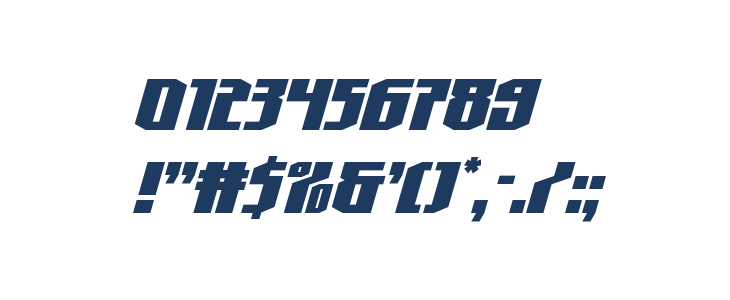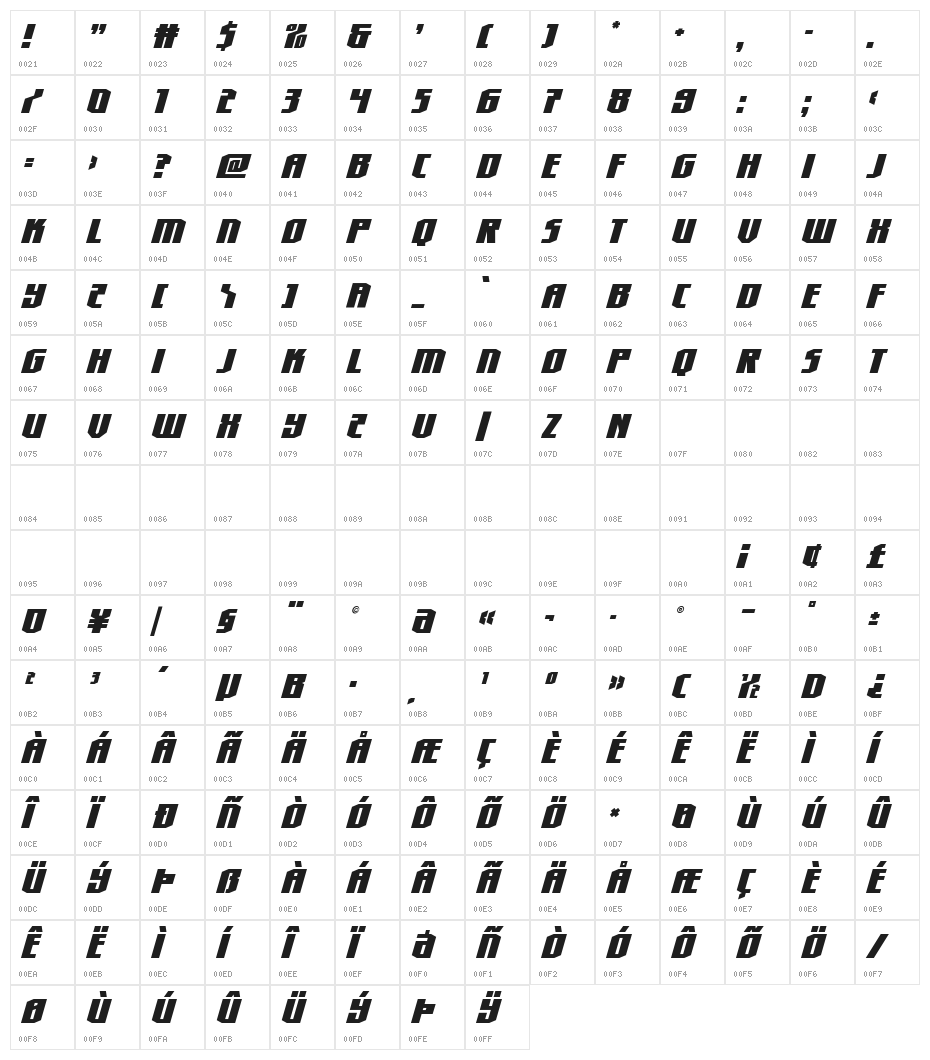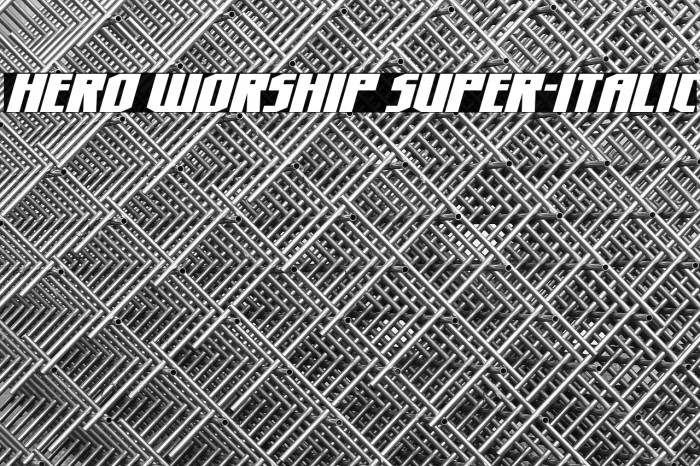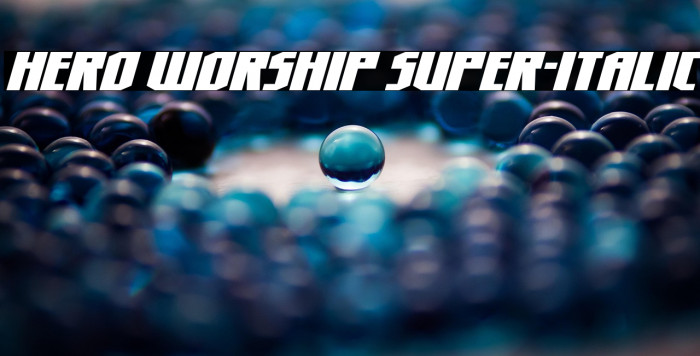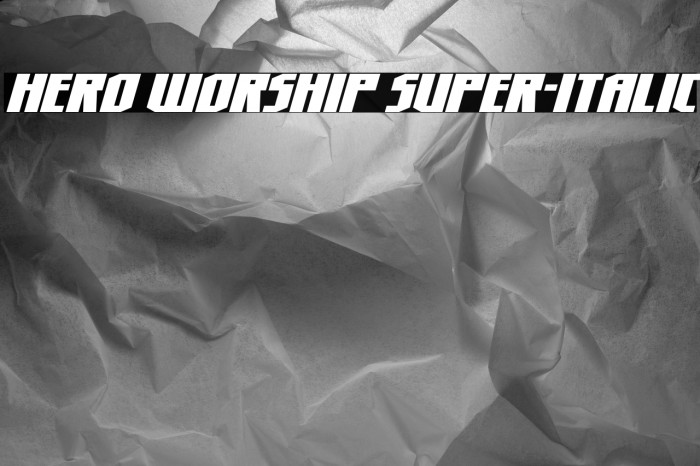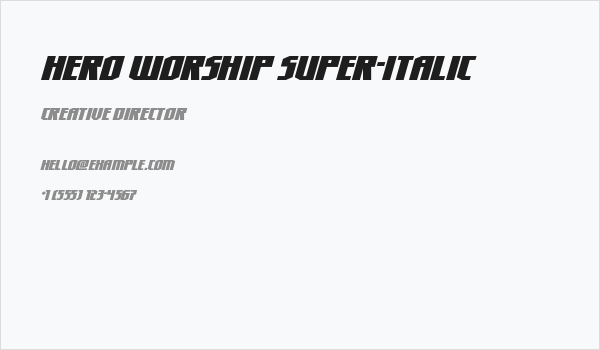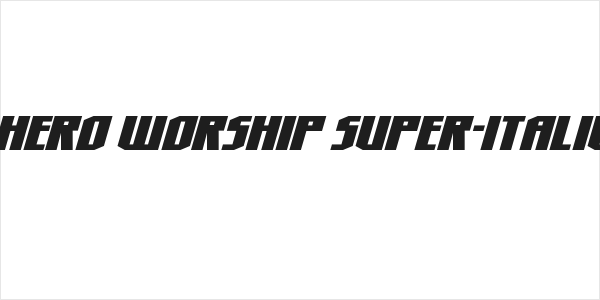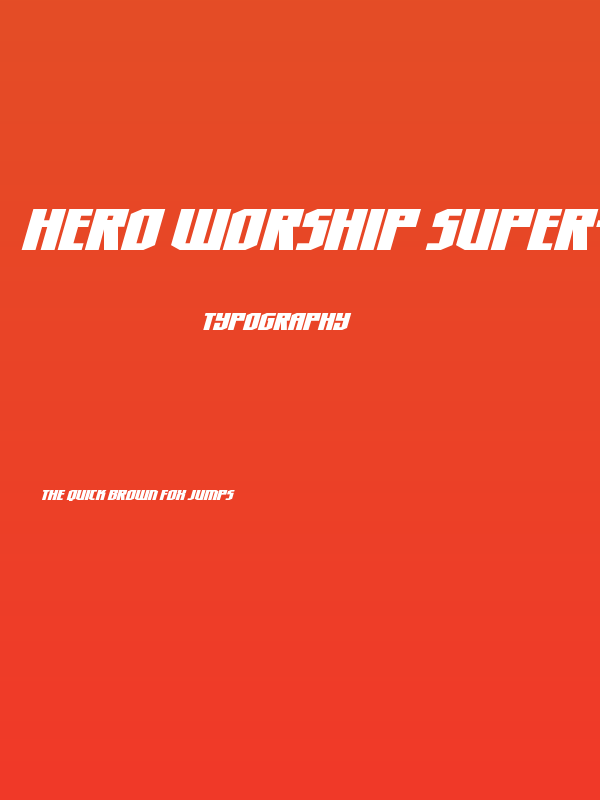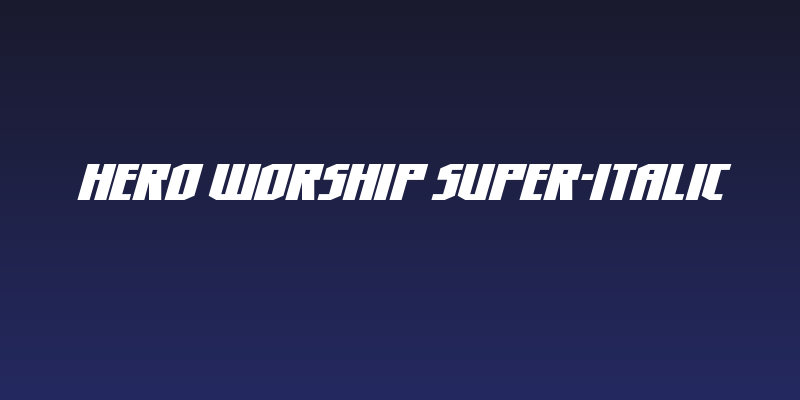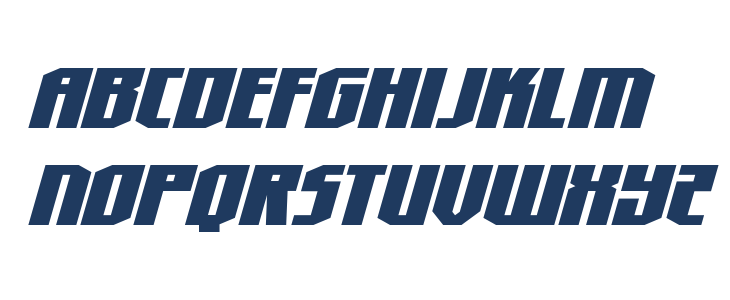
Hero Worship Super-Italic Font
Hero Worship Super-Italic Description
This font features a bold, dynamic style with sharp angles and a forward-leaning italic slant, giving it a sense of motion and energy. The characters are designed with a strong geometric influence, showcasing thick strokes and a consistent weight throughout. The uppercase letters are particularly striking, with a blocky, futuristic appearance that commands attention. The lowercase letters maintain the same boldness, ensuring readability while preserving the font's unique style. Numbers and special characters are crafted with the same attention to detail, making them suitable for a variety of design applications.
| Proposed Projects | Ideal for sports branding, video game titles, action movie posters, and dynamic logo designs. |